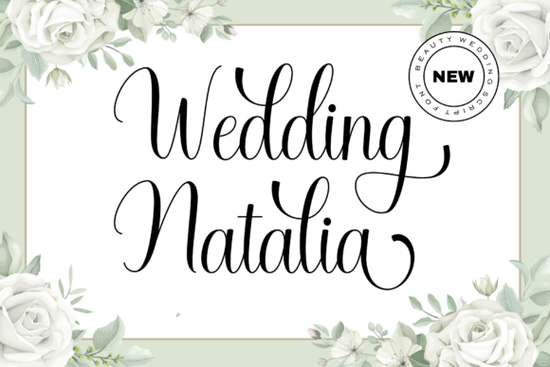
If you're looking for a font that can add a touch of elegance and sophistication to your wedding designs, the Wedding Natalia Font is a perfect choice. This beautiful script font is designed to bring out the romantic and enchanting elements of any wedding creative, making it a favorite among designers, crafters, and print-on-demand sellers.
Why Choose Wedding Natalia for Your Wedding Designs?
Wedding Natalia is more than just a font; it's a poetic script that can transform your wedding content into an exquisite tale of love and romance. Its beautifully curved strokes and harmonious charm make it ideal for creating invitations, save-the-dates, and other wedding stationery. The font's timeless elegance and soft allure are sure to captivate at first sight, making it a go-to choice for those who want to add a personal and sophisticated touch to their designs.
How Can You Use Wedding Natalia in Different Projects?
Wedding Natalia is versatile and can be used in a variety of projects. Here are some ideas:
- Wedding Invitations: Create stunning and elegant wedding invitations that set the tone for your special day.
- Save-the-Dates: Design beautiful save-the-date cards that guests will cherish and remember.
- Thank You Cards: Show your gratitude with personalized thank you cards that reflect the beauty of your wedding.
- Place Cards and Menus: Add a touch of elegance to your table settings with custom place cards and menus.
- Wedding Websites and Blogs: Use the font on your wedding website or blog to create a cohesive and romantic theme.
What Makes Wedding Natalia Stand Out?
One of the key features that sets Wedding Natalia apart is its smooth and flowing script. The font's design is carefully crafted to mimic the natural flow of handwriting, making it look both elegant and personal. Whether you're designing for a traditional, modern, or rustic wedding, Wedding Natalia can adapt to fit the style and theme of your event.
How Does Wedding Natalia Compare to Other Script Fonts?
While there are many script fonts available, Wedding Natalia stands out with its unique blend of elegance and readability. Here’s how it compares to some other popular script fonts:
- Snapshot Font: While Snapshot Font has a more casual and playful feel, Wedding Natalia offers a more refined and sophisticated look, making it better suited for formal events.
- Nuances Affection Font: Nuances Affection Font is also elegant but has a more intricate and detailed design. Wedding Natalia, on the other hand, is simpler and more straightforward, which can be more appealing for clean and minimalistic designs.
- Alverina Font: Alverina Font is known for its decorative and ornate style, which can be overwhelming for some designs. Wedding Natalia provides a more balanced and subtle elegance, making it easier to use in a wider range of projects.
- Wonderful Vintages Font: Wonderful Vintages Font has a vintage and retro feel, which can be great for specific themes. Wedding Natalia, with its timeless and classic design, is more versatile and can be used in a broader range of wedding styles.
- Mallestian Script Font: Mallestian Script Font is bold and dramatic, which can be perfect for making a statement. Wedding Natalia, with its softer and more delicate strokes, is better suited for creating a romantic and intimate atmosphere.
Tips for Using Wedding Natalia Effectively
To get the most out of Wedding Natalia, here are some practical tips:
- Pair with Complementary Fonts: Use Wedding Natalia as a display font and pair it with a simple, clean sans-serif or serif font for body text to create a balanced and readable design.
- Adjust Spacing and Kerning: Fine-tune the spacing and kerning to ensure that the text looks natural and flows smoothly. This is especially important for longer texts like wedding vows or stories.
- Use High-Quality Printing: For printed materials, use high-quality paper and printing to do justice to the font's elegant and detailed design.
- Test on Different Backgrounds: Experiment with different backgrounds, such as textured paper or watercolor, to see how the font looks and choose the one that best complements your overall design.